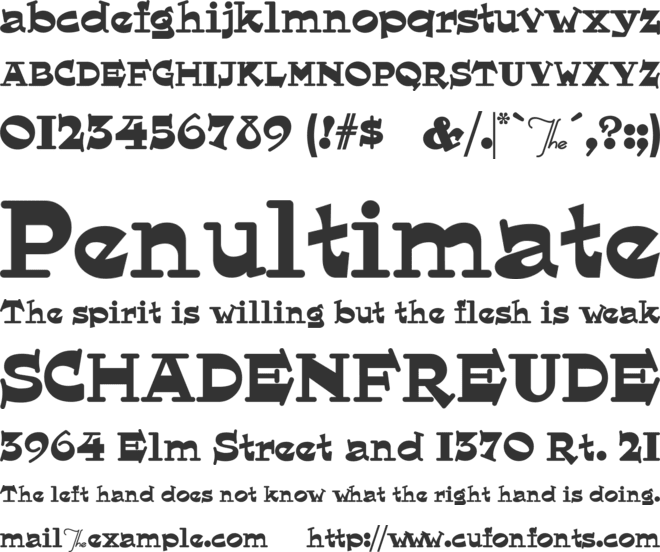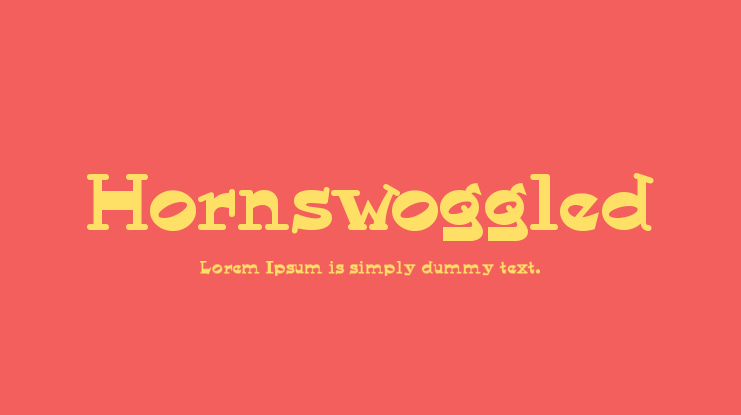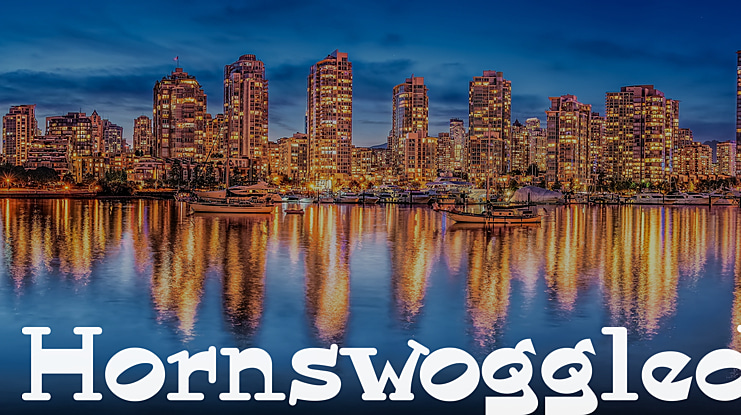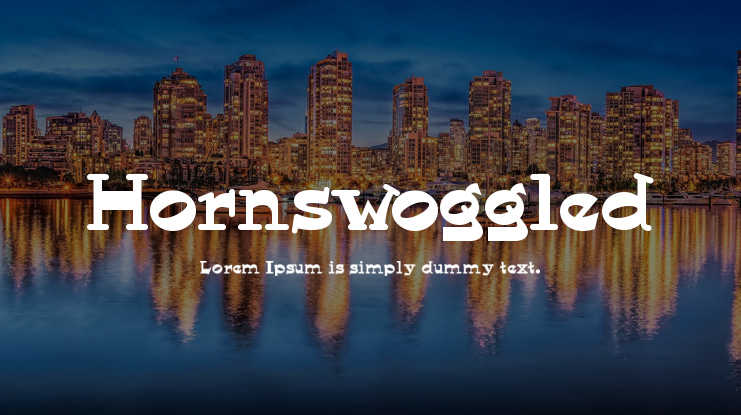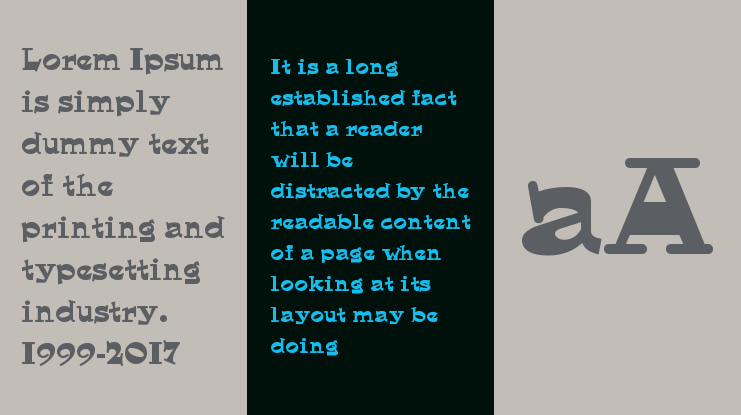
Hornswoggled Font
Here’s another wacky font that has been kicking around the web for awhile, sporting various names like Eglantine and Lounger. My version is cleaner, leaner and meaner, but no less cuddly, cute and loveable. The name? I looked at the uppercase W, and it kinda reminded me of a guy who’s been bushwacked, dry-gulched and, of course, hornswoggled.